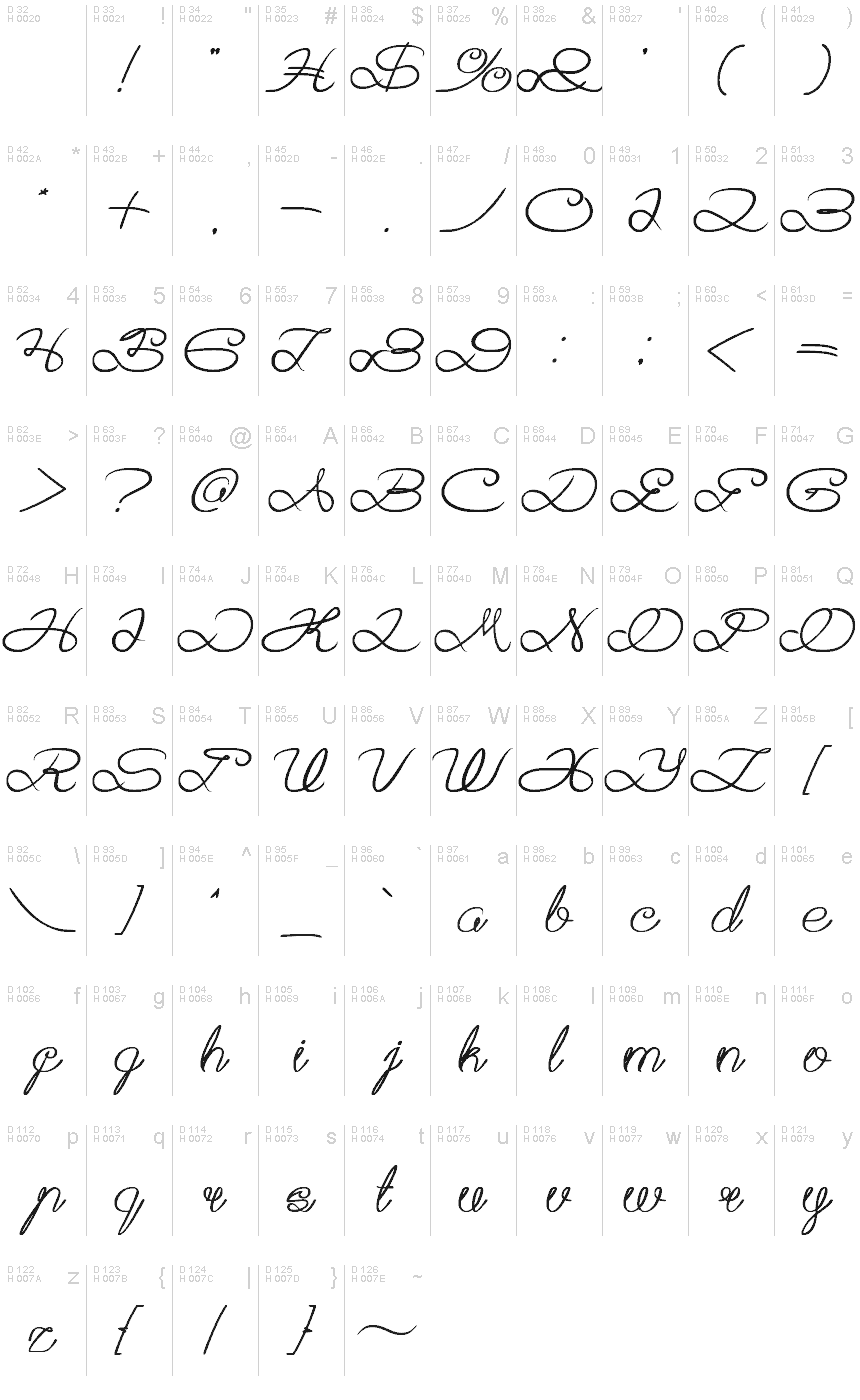
Aku Cinta Kamu by Weknow is a free calligraphic script with sweeping loops and an unusually fine, continuous line. Tall flourishes rise far above the letters, and broad lower curves create a lively ribbon-like silhouette without relying on dense decoration.
Packaging for perfume or confectionery can use its ornate movement to suggest a personal inscription, while wedding invitations and fashion branding suit its elegant scale. Magazine mastheads gain a decorative, signature-like editorial voice from those extended loops.